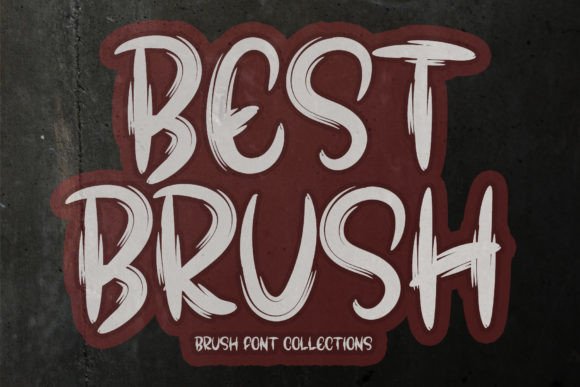
Introducing the Best Brush Font, the ultimate choice for anyone looking to take their designs to the next level. This script font family is the perfect fit for designers who want to create eye-catching headlines that captivate their audience.
Crafted with precision by the talented team at Protype Studio, Best Brush is a font that truly lives up to its name. It's playful and whimsical, yet professional and elegant, making it incredibly versatile for a wide range of applications.
Whether you're creating a brand new website or designing a striking logo, Best Brush Font is the perfect way to add a touch of fun and personality to your project. Its unique style is sure to set you apart from the competition, making it an essential addition to any designer's toolkit.
But don't just take our word for it - try it out for yourself and see the difference it can make! With its bold, brush-like strokes and stunning attention to detail, Best Brush Font is the perfect choice for anyone looking to elevate their design game.